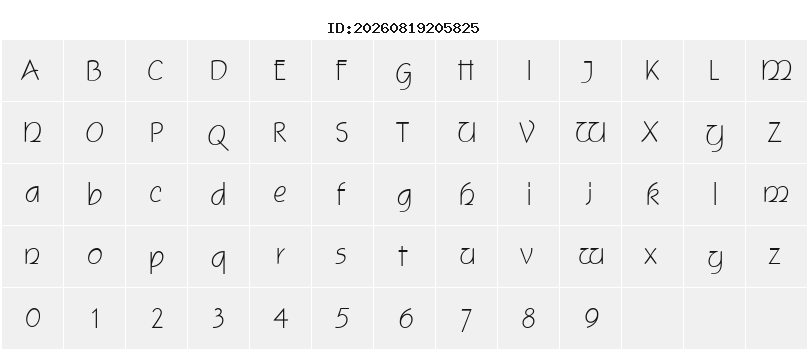
Sheela Preview
About Sheela.ttf
Sheela.ttf is a modern, elegant sans-serif font designed for ultimate readability and visual harmony. Perfect for branding, headlines, web design, and print materials.